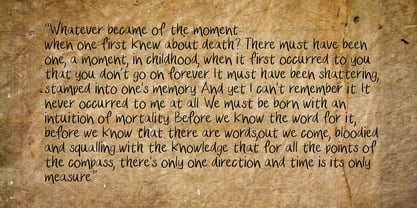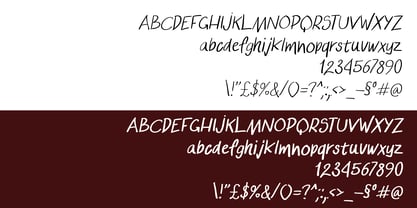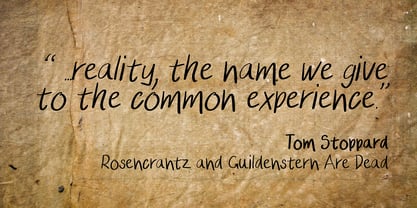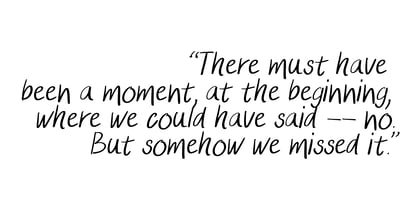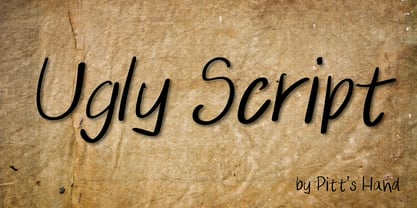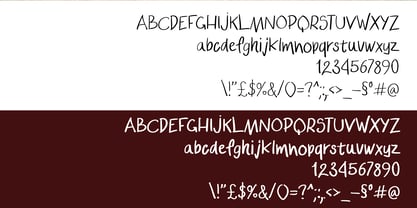
Ugly Script
by Pitt's Hand
The Ugly Script Font Family was designed by Pietro Rotelli and published by Pitt's Hand. Ugly Script contains 4 styles and family package options. More about this family
Ugly Script is a handwritten script typeface designed for poetry, artistic texts, and expressive writing. It captures the beauty of imperfection, embracing a natural, spontaneous handwriting style that feels intimate, personal, and deeply human. The letterforms are fluid, irregular, and slightly unpolished, giving the font an authentic, emotional character. Ugly Script is not meant to be decorative or ornamental in a classic sense; instead, it conveys sincerity, fragility, and raw expression, making it ideal for poems, short stories, personal projects, book excerpts, lyrics, and artistic compositions. Its organic rhythm and natural connections create a smooth reading flow, while subtle variations keep the text alive and dynamic. Ugly Script works best at medium to large sizes, where its handwritten qualities can fully emerge. Ugly Script is perfect when you want typography that feels written, not designed — honest, imperfect, and expressive.
Designers: Pietro Rotelli
Foundry: Pitt's Hand